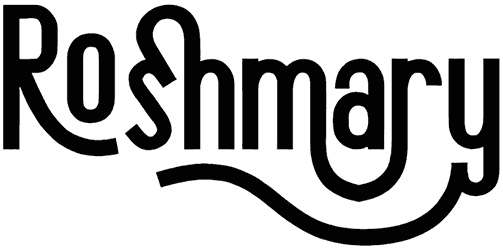
Roshmary Font
Adding a little bit of creativity to a formal sans serif would lead to an outstanding typeface such as Roshmary that carries a sense of innovation, professionalism, majesty, and dynamic.
We strongly recommend graphic designers add it to their creative ideas, including posters, book covers, invitations, diplomas, and gift cards, and then notice how it makes them astonishing. Considering its limitless advantages, the lack of numbers won’t be a serious matter.